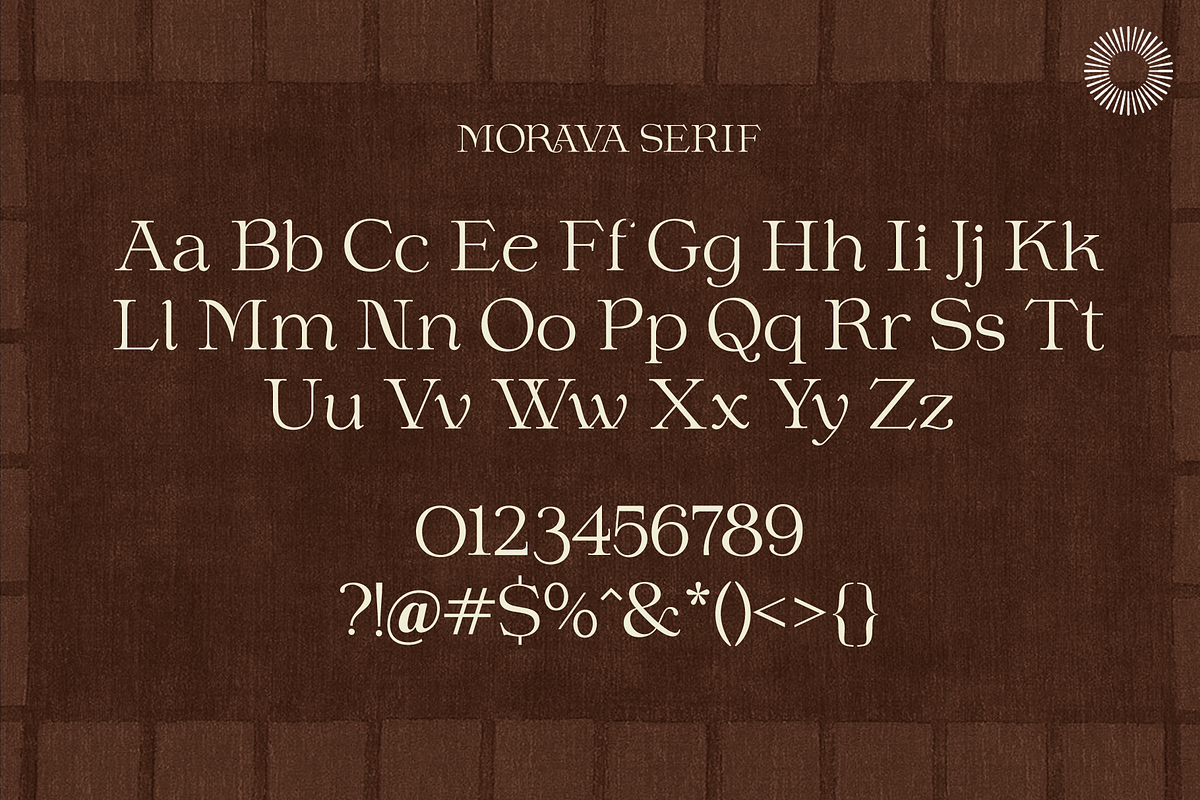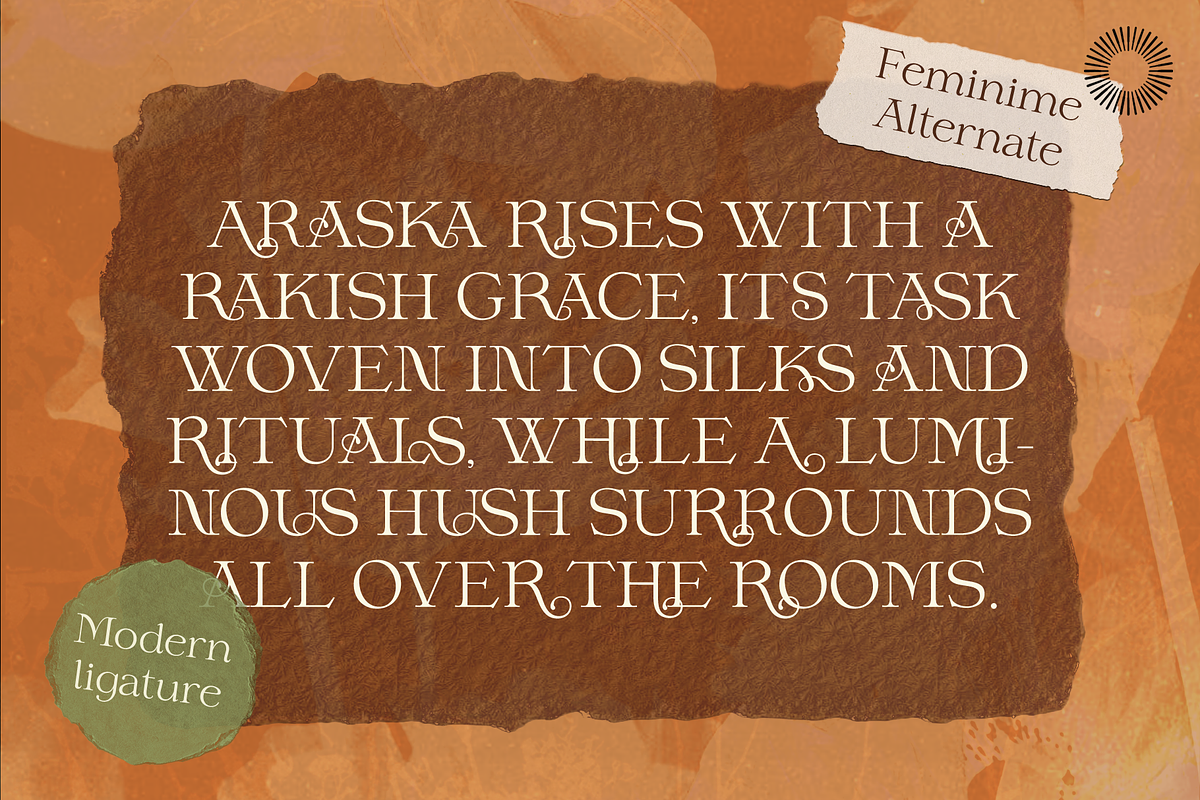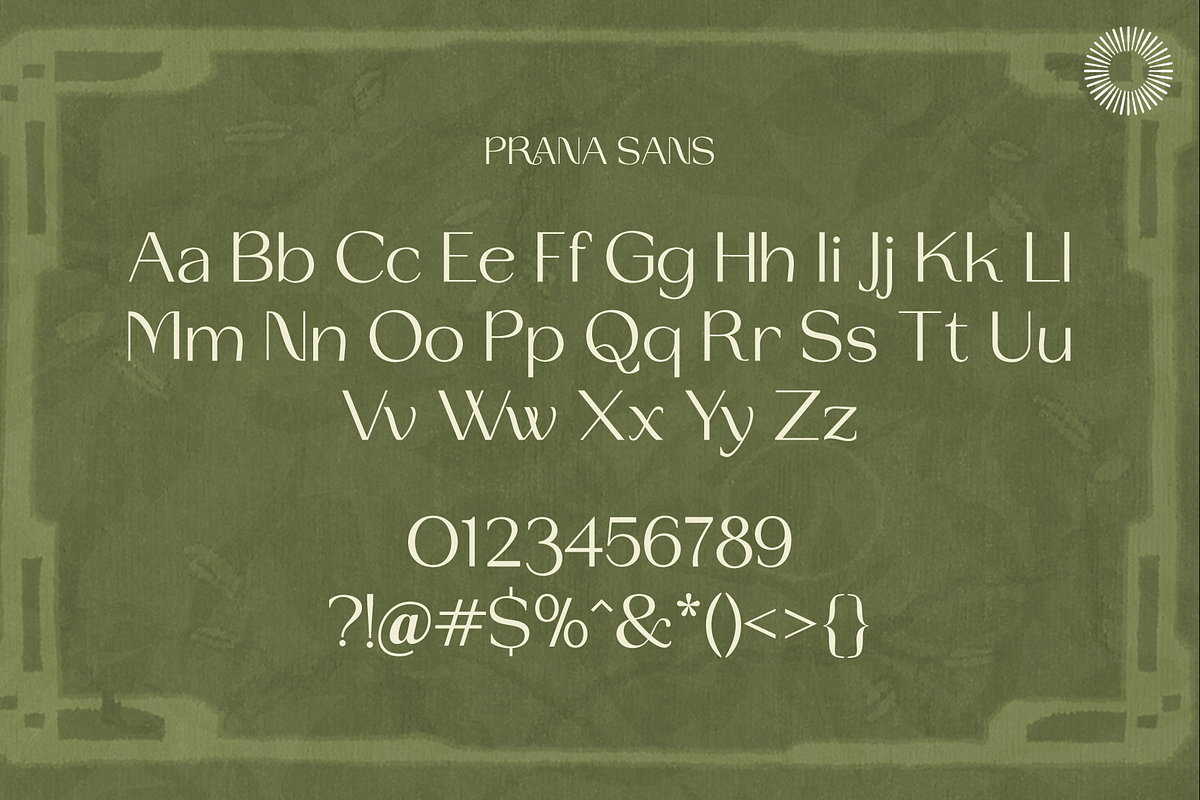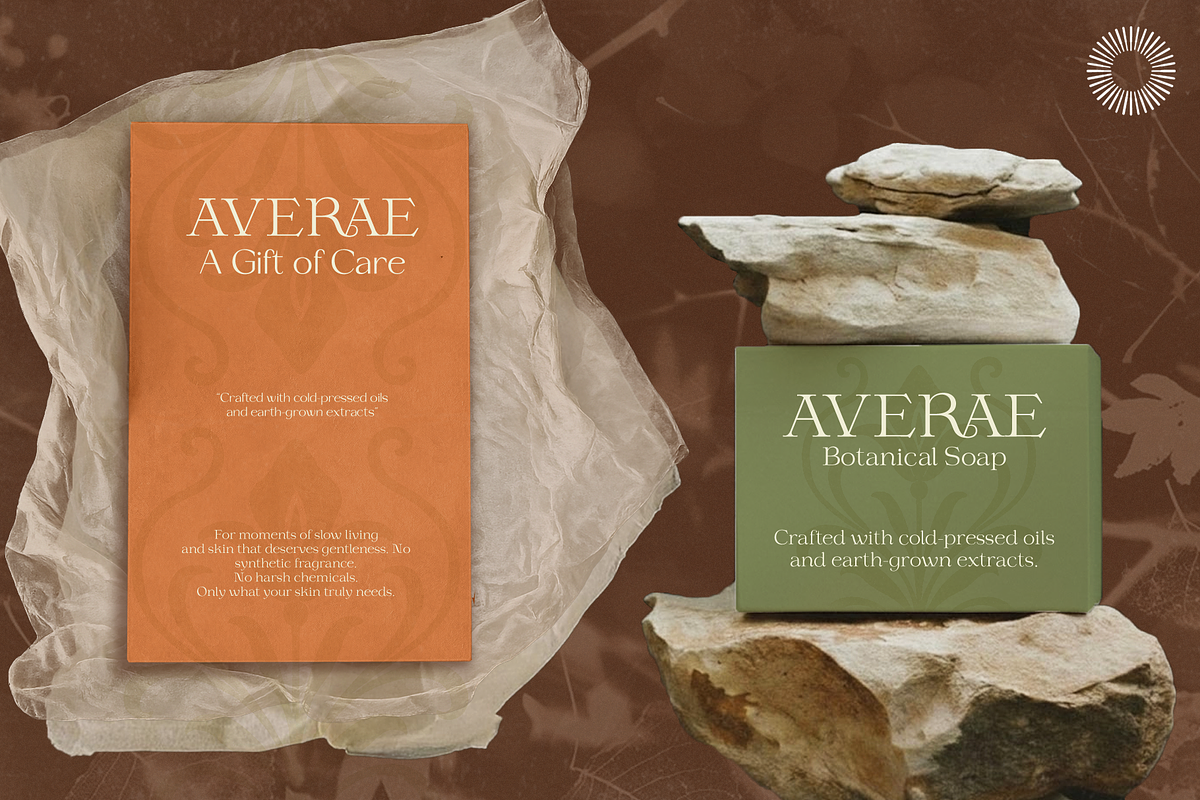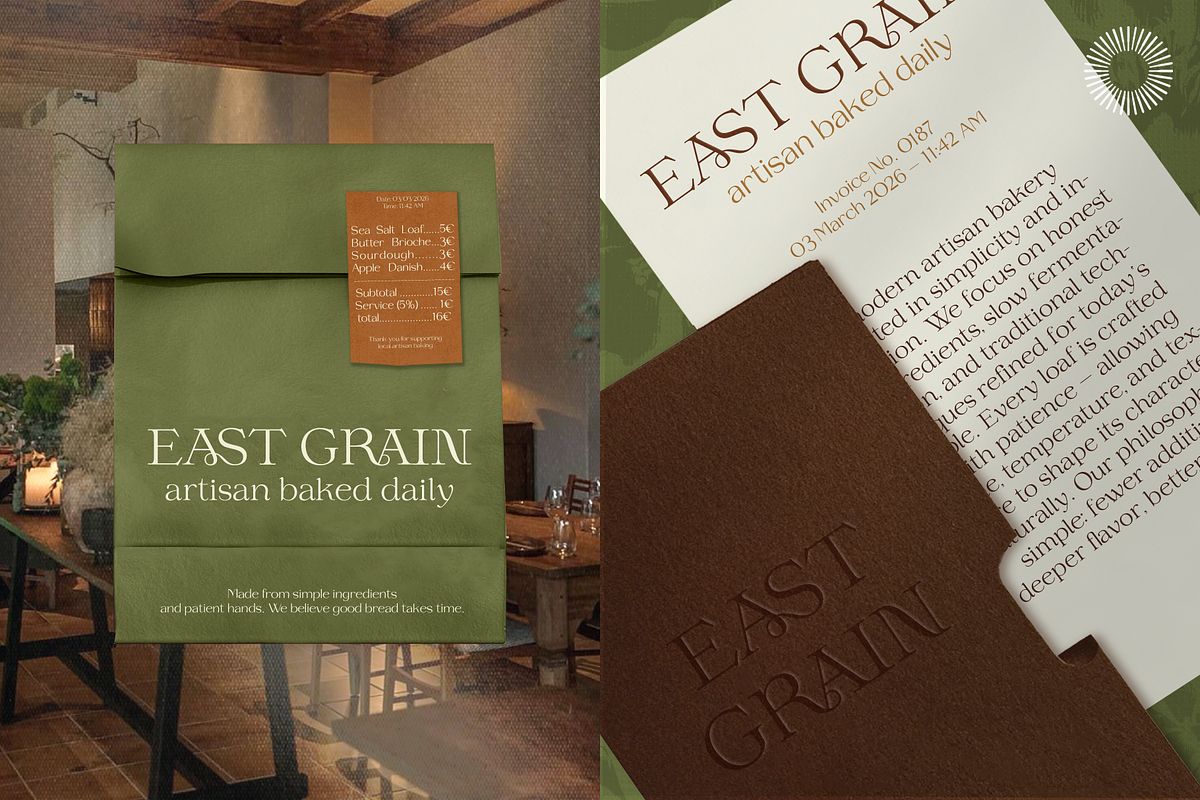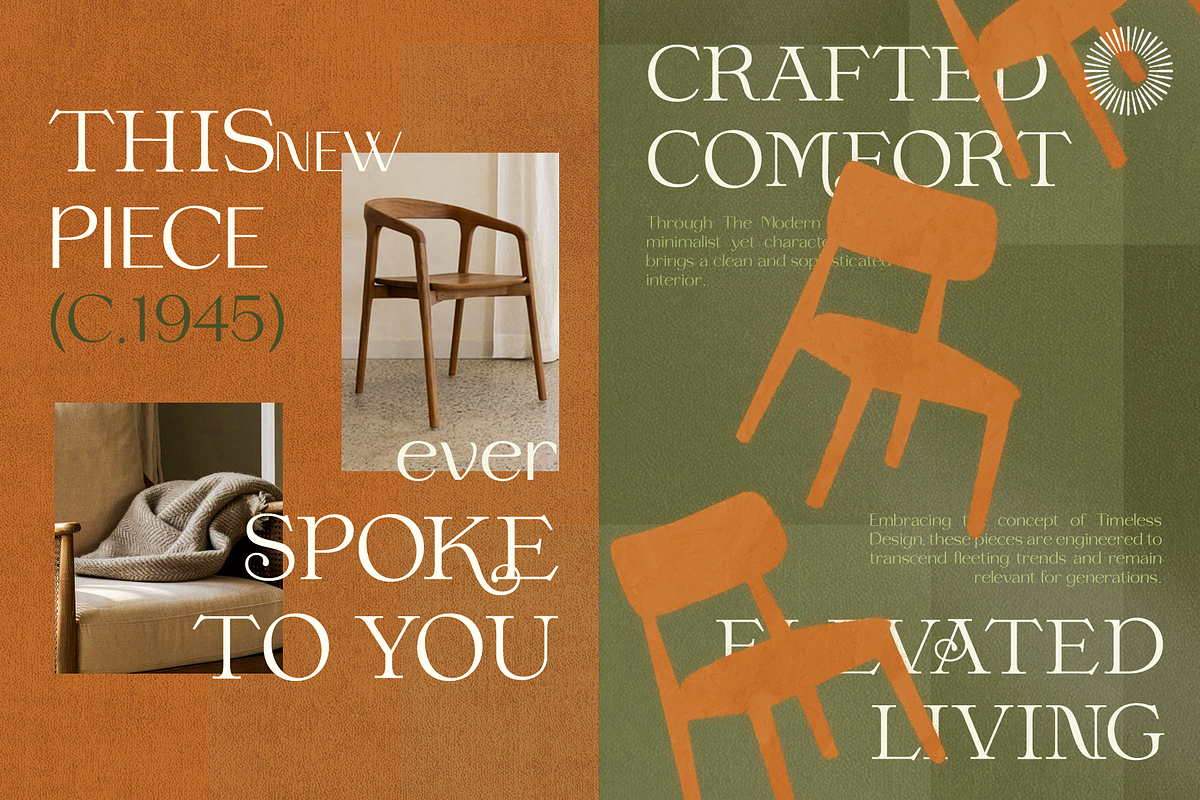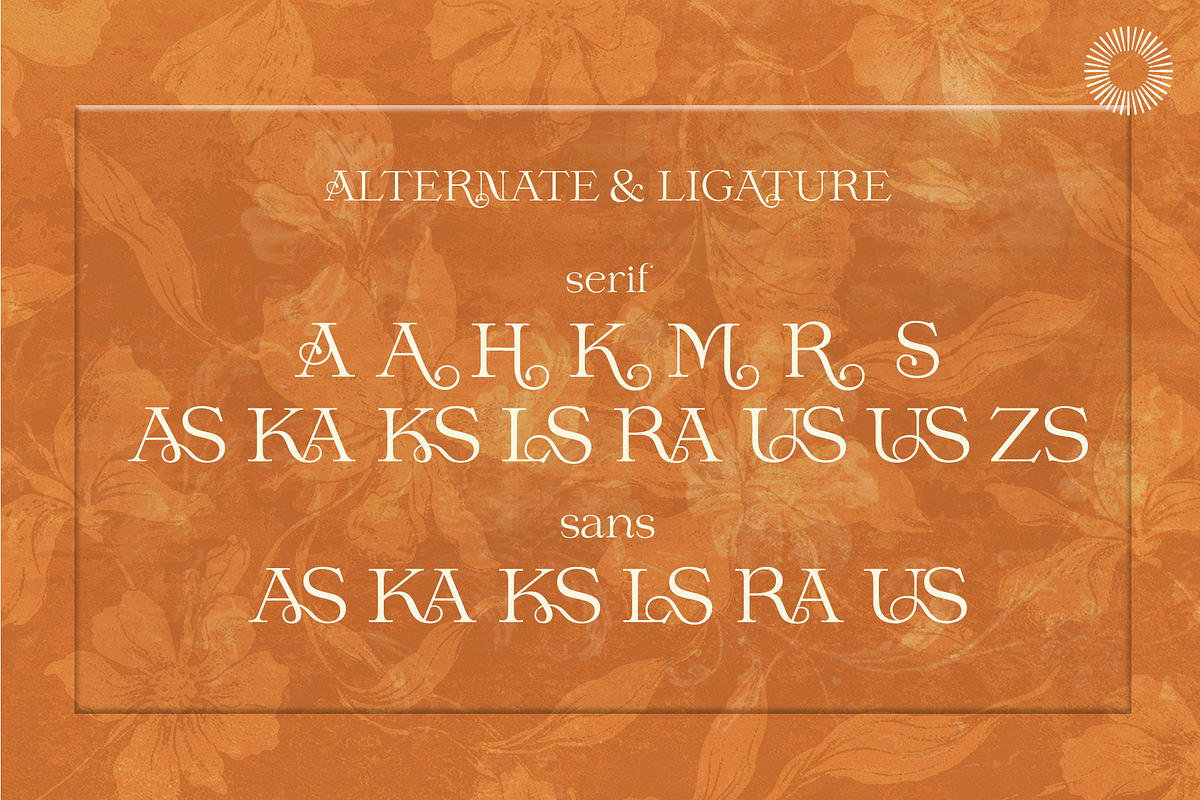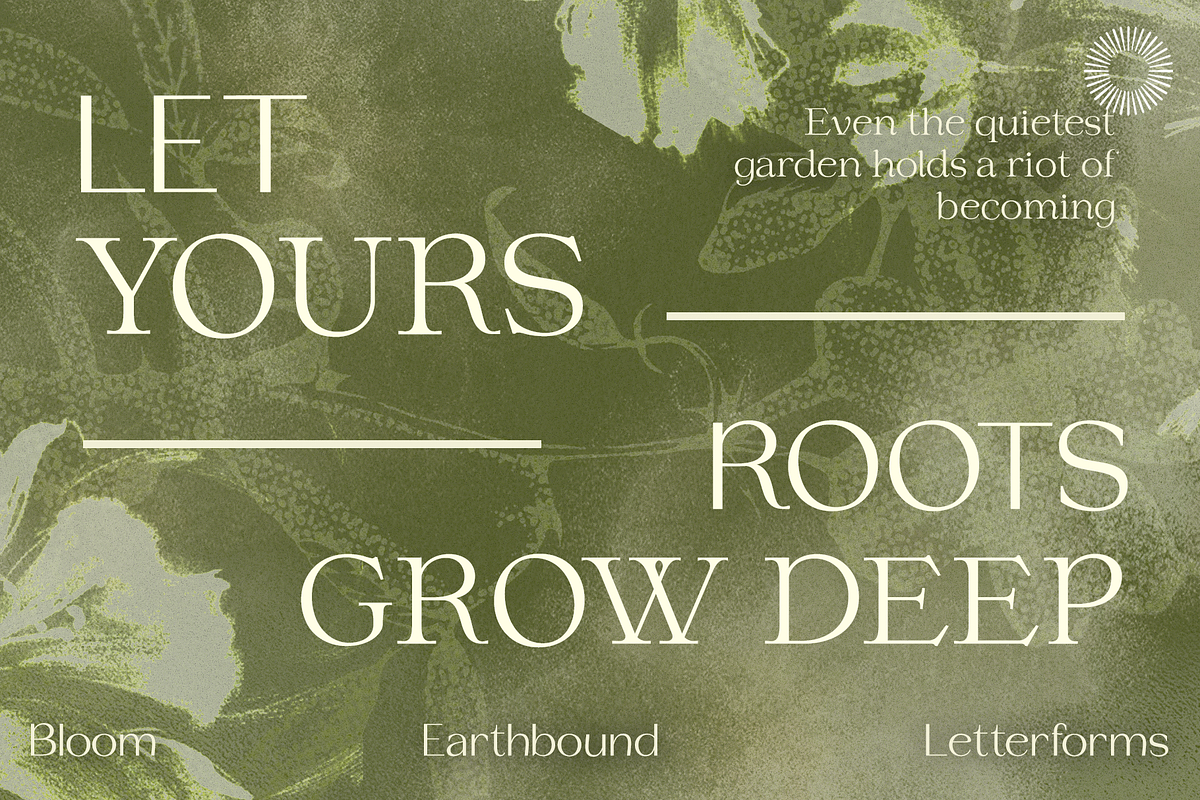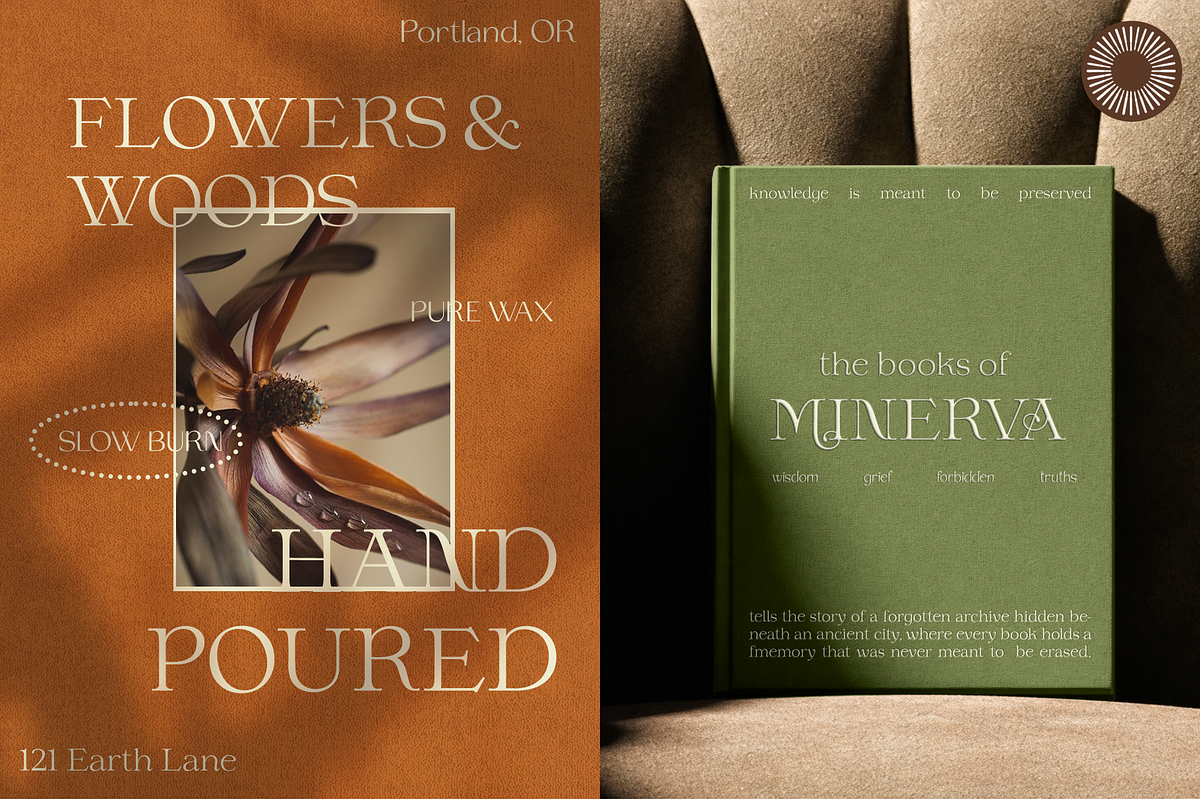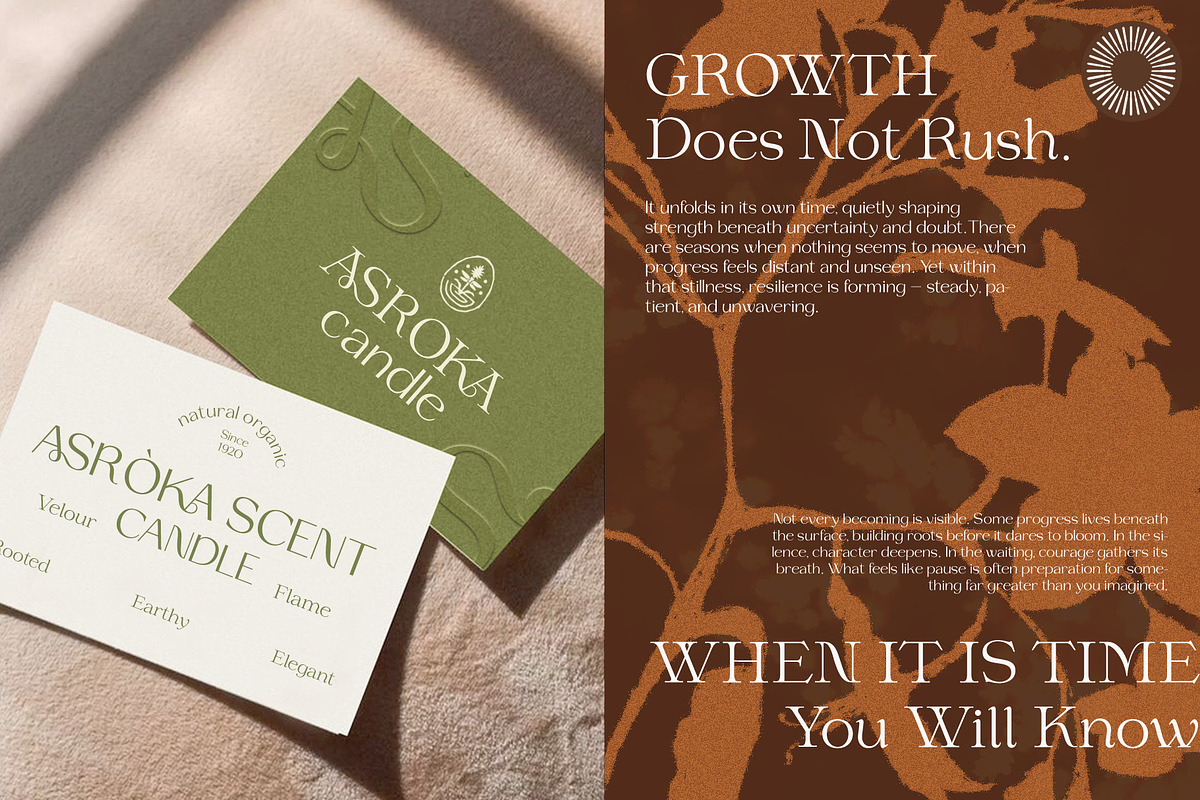
Prana - Sacred Vintage Duo
Prana is a whimsical vintage serif & sans inspired by the quiet rhythm of breath and the warmth of timeless design. Blending classic elegance with subtle artistic curves, this typeface brings a sense of calm, character, and soulful beauty to modern creative work. Carefully crafted to balance refinement and personality, Prana offers two complementary serif styles that work beautifully together for expressive typography and sophisticated layouts.
- PRANA Regular
- PRANA Decorative
- Uppercase & Lowercase characters
- Elegant vintage serif style
- Unique decorative letterforms
- Beautiful for large display typography
- Harmonious serif duo pairing
- Clean and readable structure
- Timeless aesthetic with artistic character
- PRANA works beautifully for:
- Branding & Logo Design
- Editorial Layouts
- Magazine Typography
- Packaging Design
- Wedding Invitations
- Art Posters
- Creative Studio Branding
- Social Media Graphics
- Book Covers
- Luxury & Vintage Branding
Let PRANA bring a sense of warmth, breath, and timeless elegance to your creative projects.